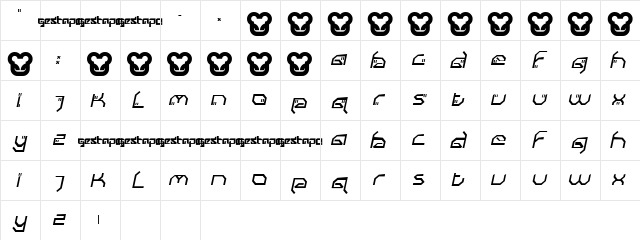
Submit Italic Free Font
Submit Italic
Design Context for Submit
Submit is a composed and adaptable typeface that performs quietly and consistently across a wide range of design contexts. The slanted form adds forward momentum and visual energy.